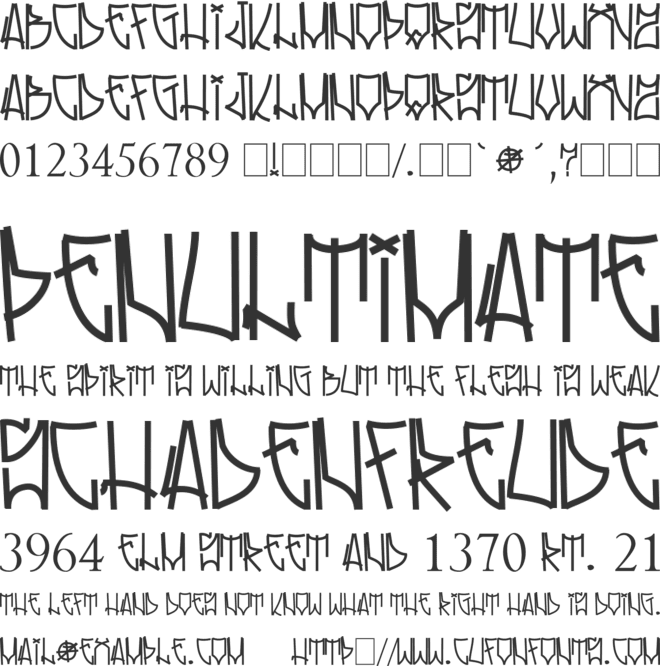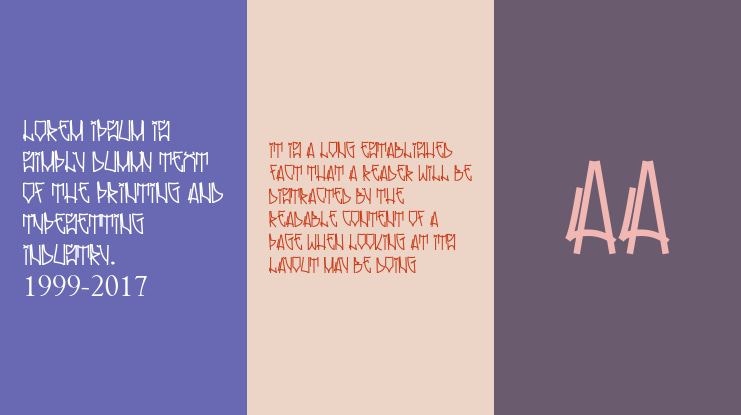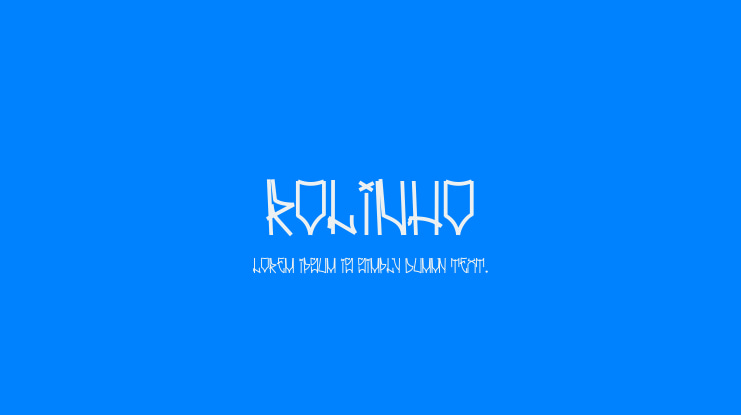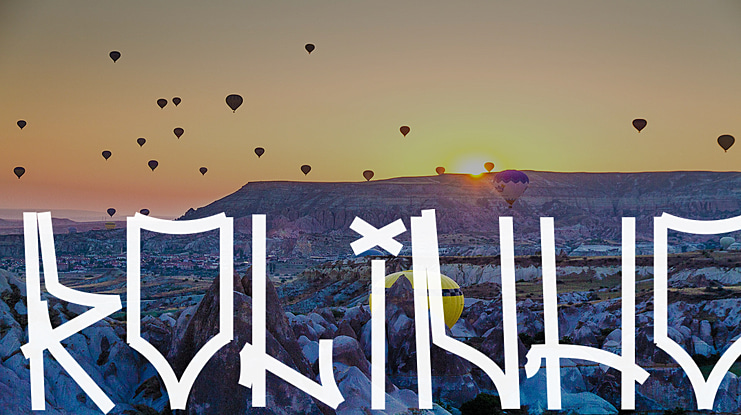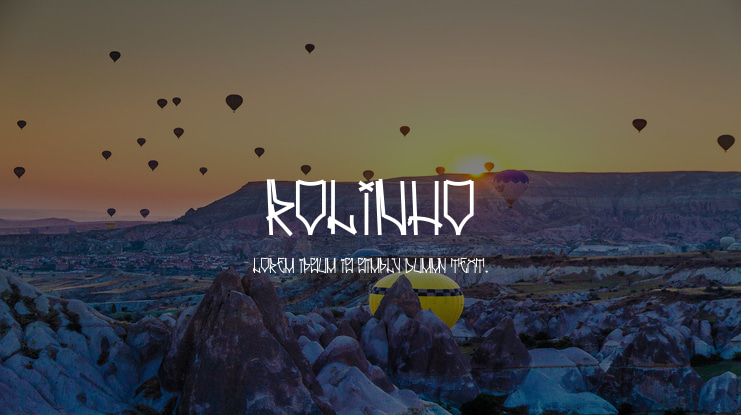
Rolinho Font
Inspired by the calligraphy done with paint rollers. Free for personal use, but donations are always welcome, let me keep working for all